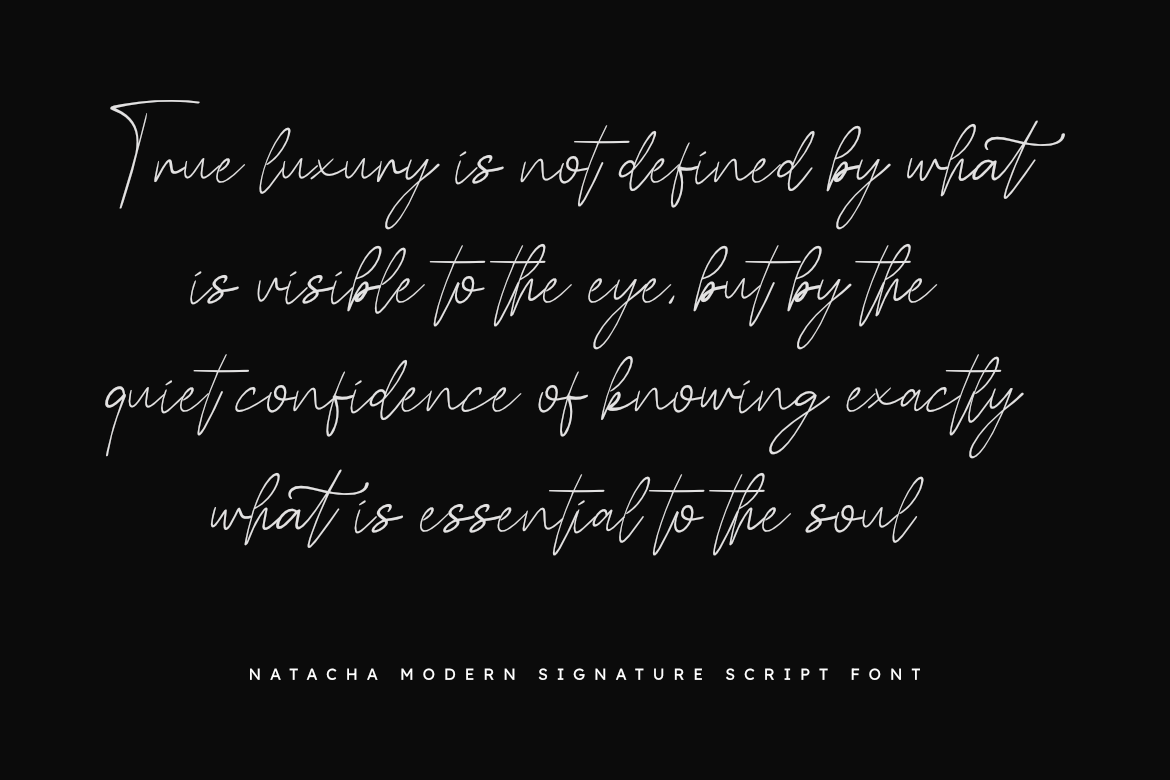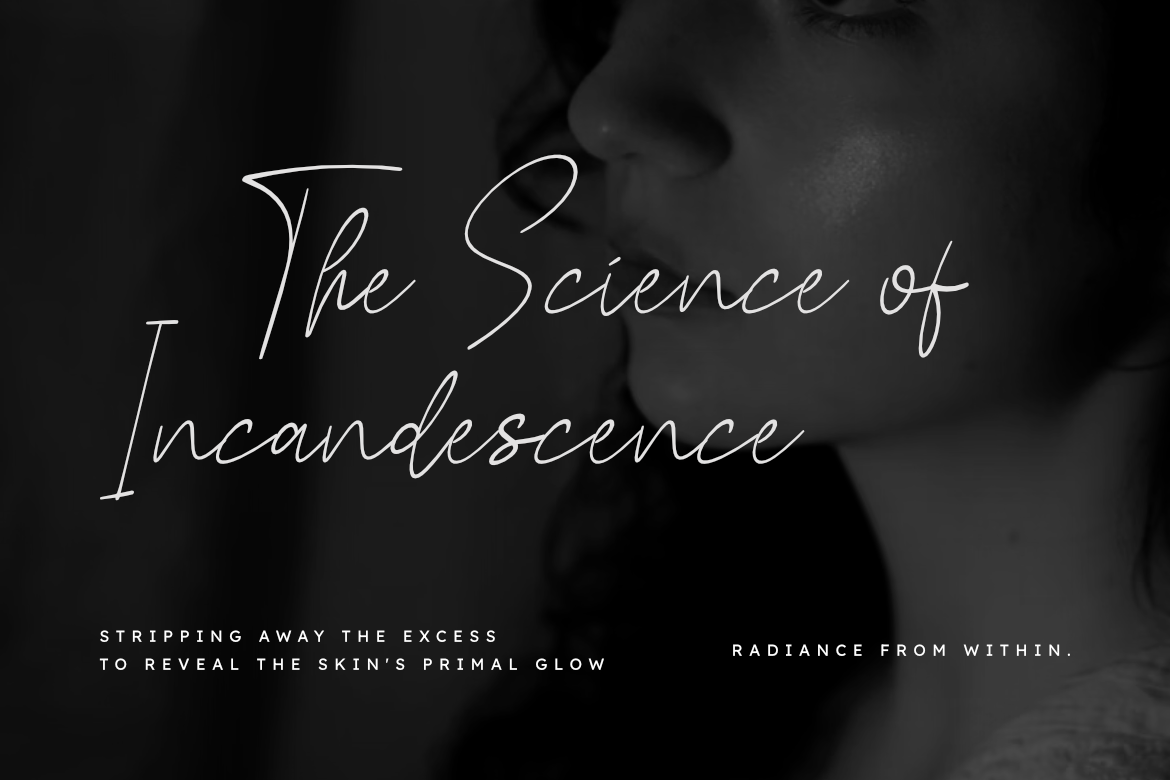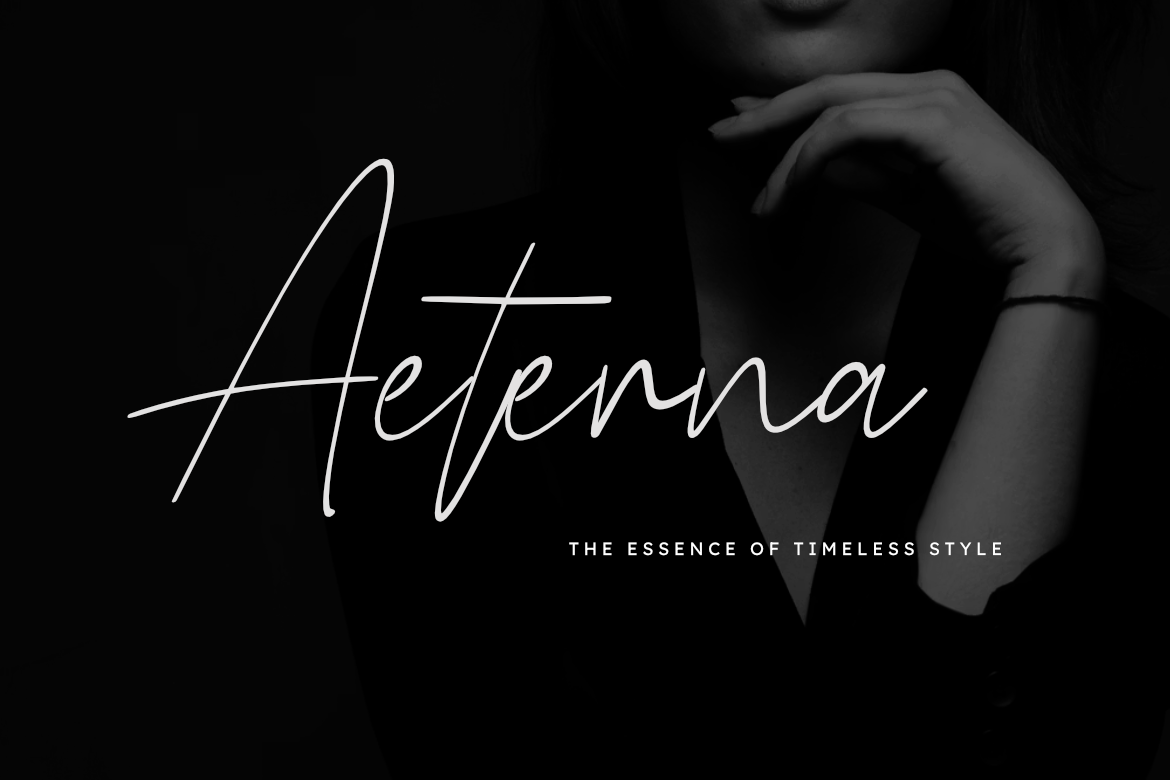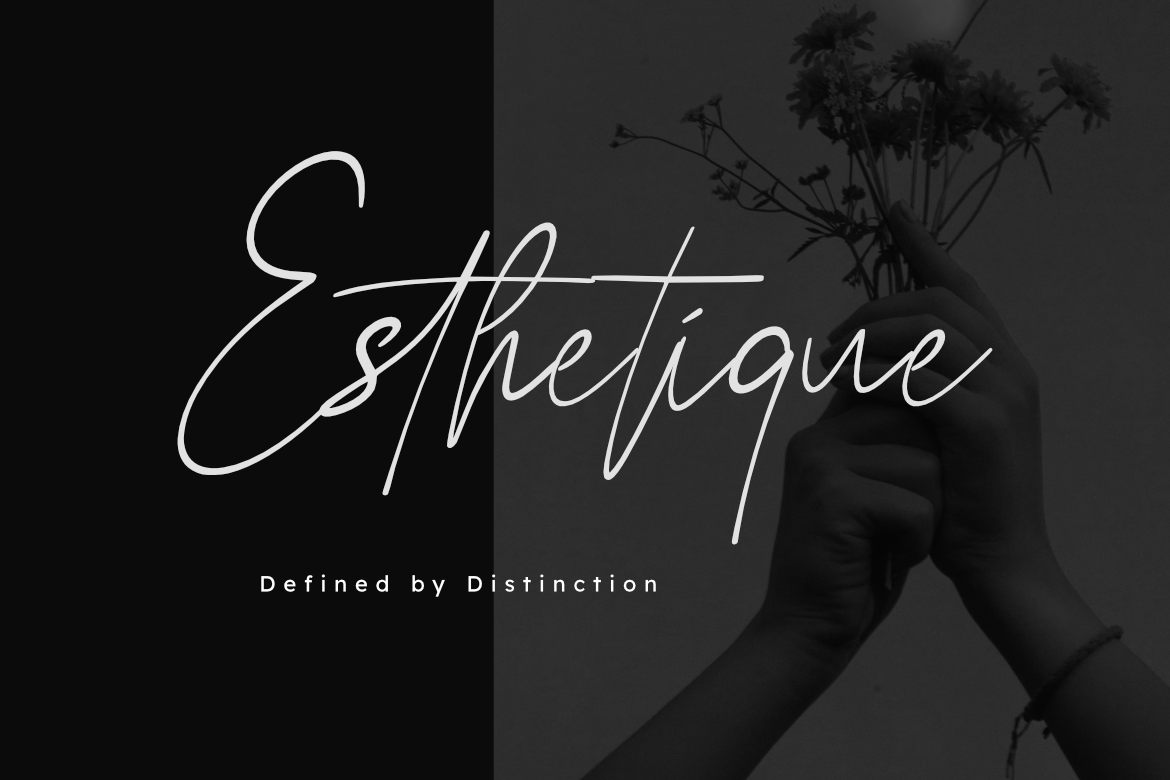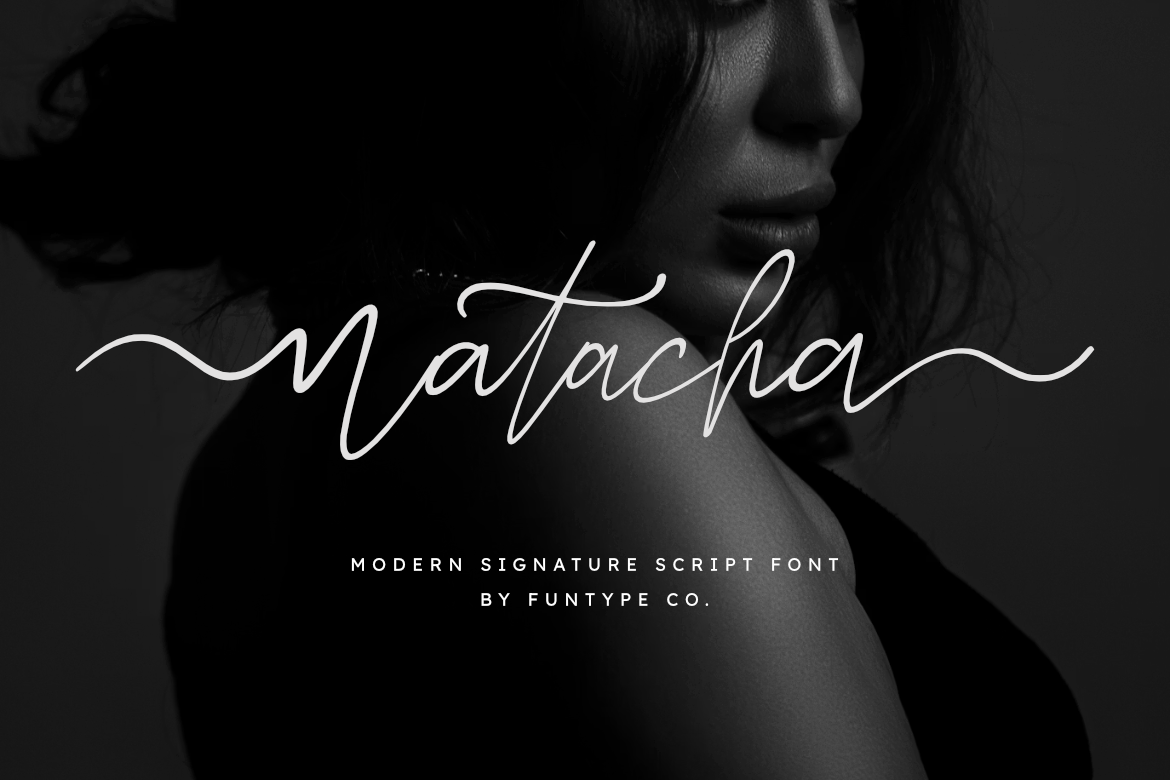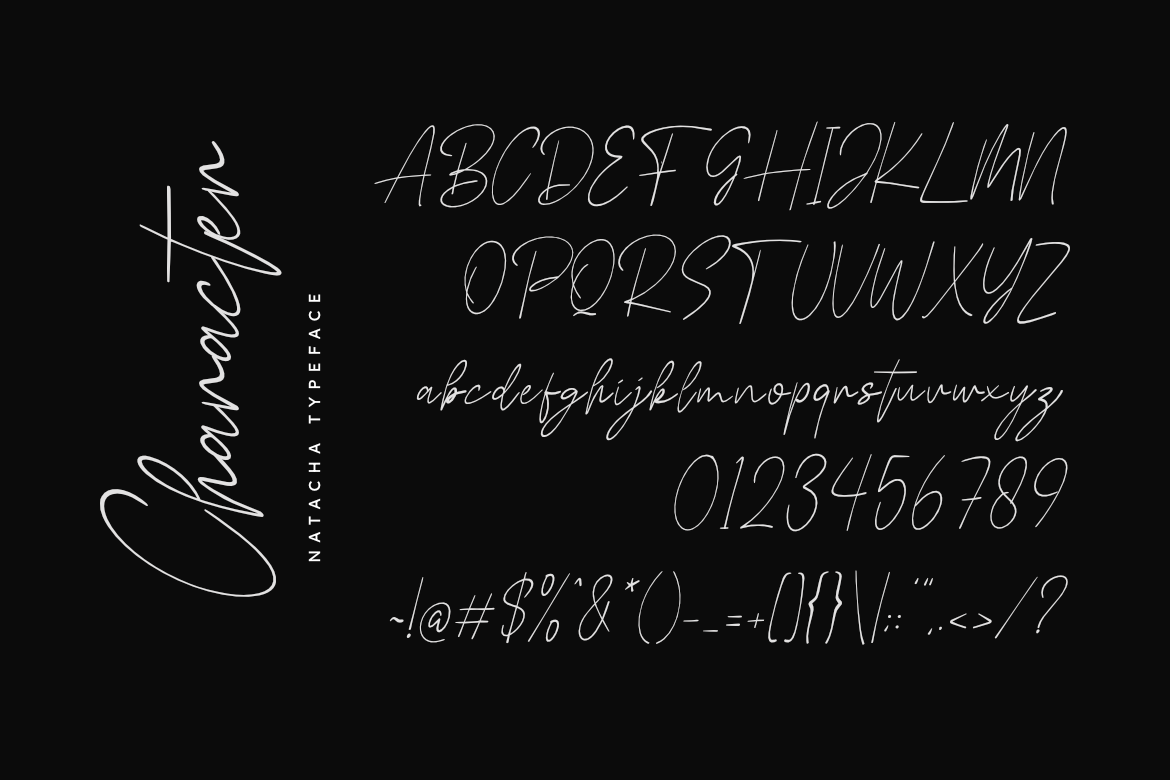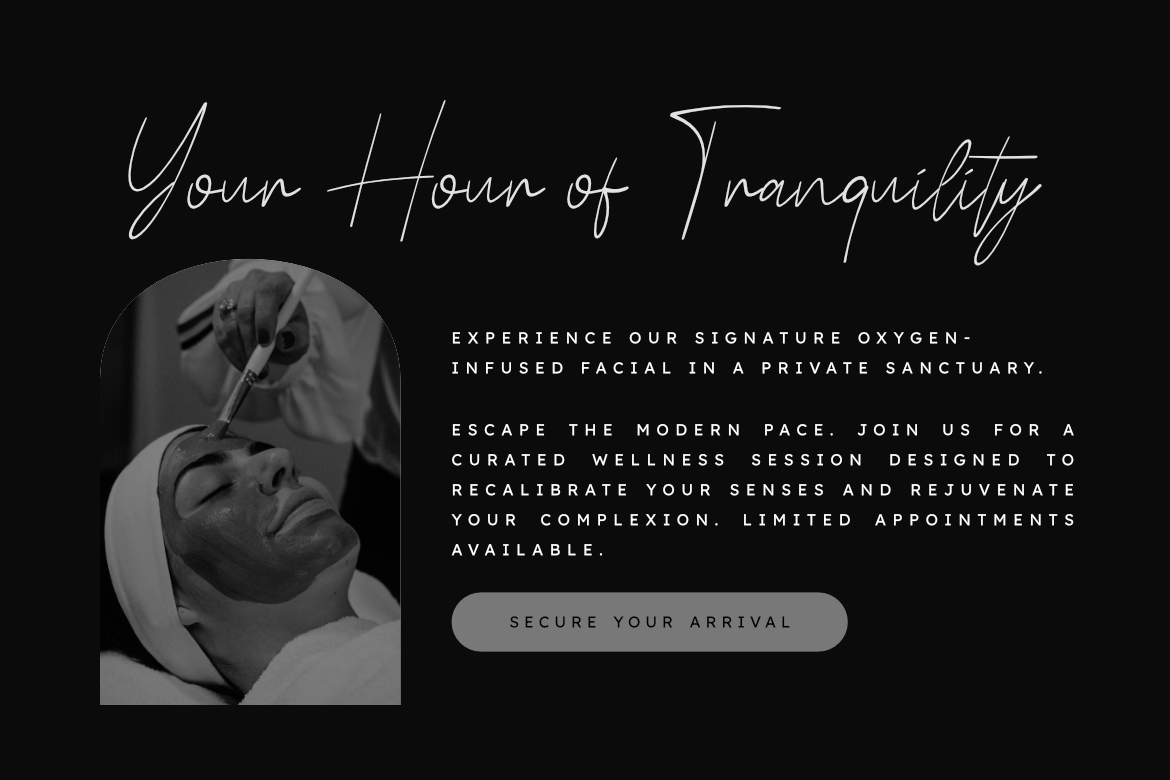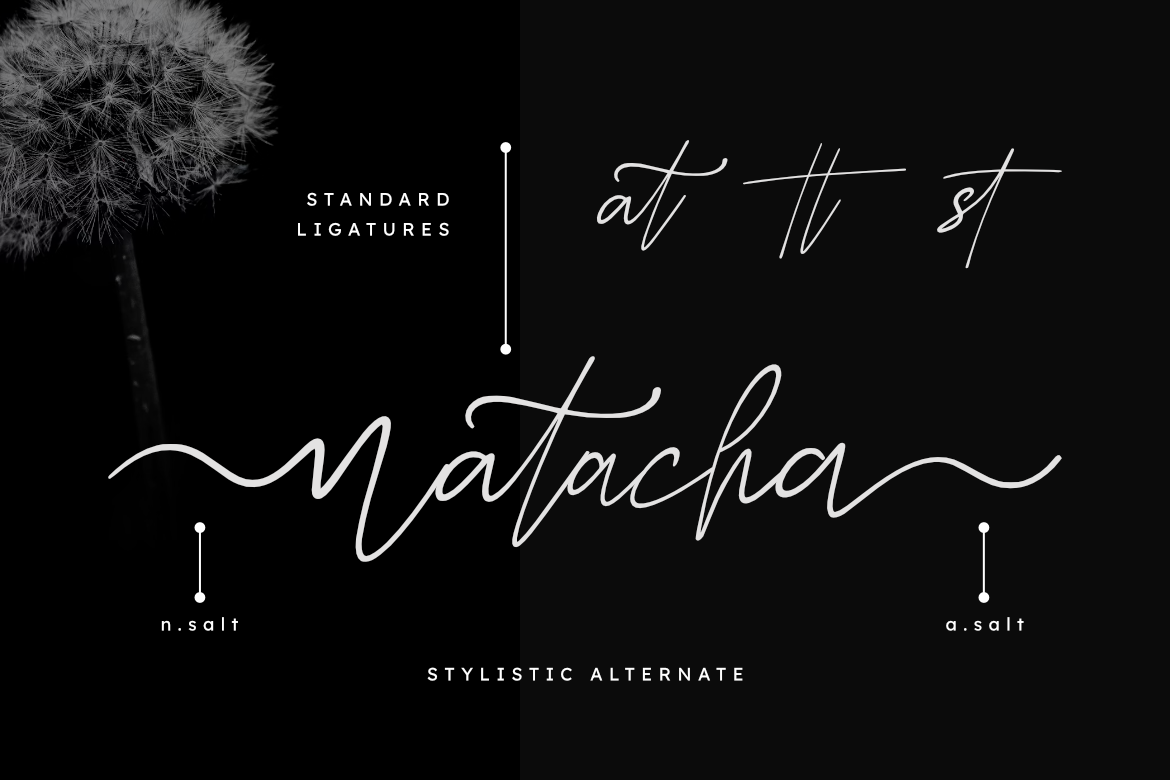
Natacha
Natacha – Modern Signature Script Font
Natacha is a sophisticated and modern signature script font, thoughtfully designed to capture the essence of personal charm and contemporary storytelling. With its fluid, expressive strokes and smooth connections, Natacha offers a professional aesthetic that brings a touch of refined intimacy to any creative project.
This font is the ideal choice for designers looking to add a professional yet high-impact personal touch to their work. Whether you are crafting a striking lifestyle brand identity, a sleek fashion logo, or elegant wedding invitations, Natacha provides a seamless blend of modern calligraphic edge and timeless luxury.
- Modern Signature Design: Optimized for a clean, natural, and highly professional handwritten look.
- Fluid Swashes & Connections: Meticulously crafted for seamless flow and superior legibility.
- Expressive Presence: Perfect for logos, signatures, and high-end editorial titles.
- Professional Aesthetic: High-end finish tailored for modern fashion, beauty, photography, and premium lifestyle branding.
Best Used For: High-end luxury branding, photography watermarks, fashion logos, premium cosmetics packaging, wedding stationery, elegant corporate signatures, and sophisticated web headers.